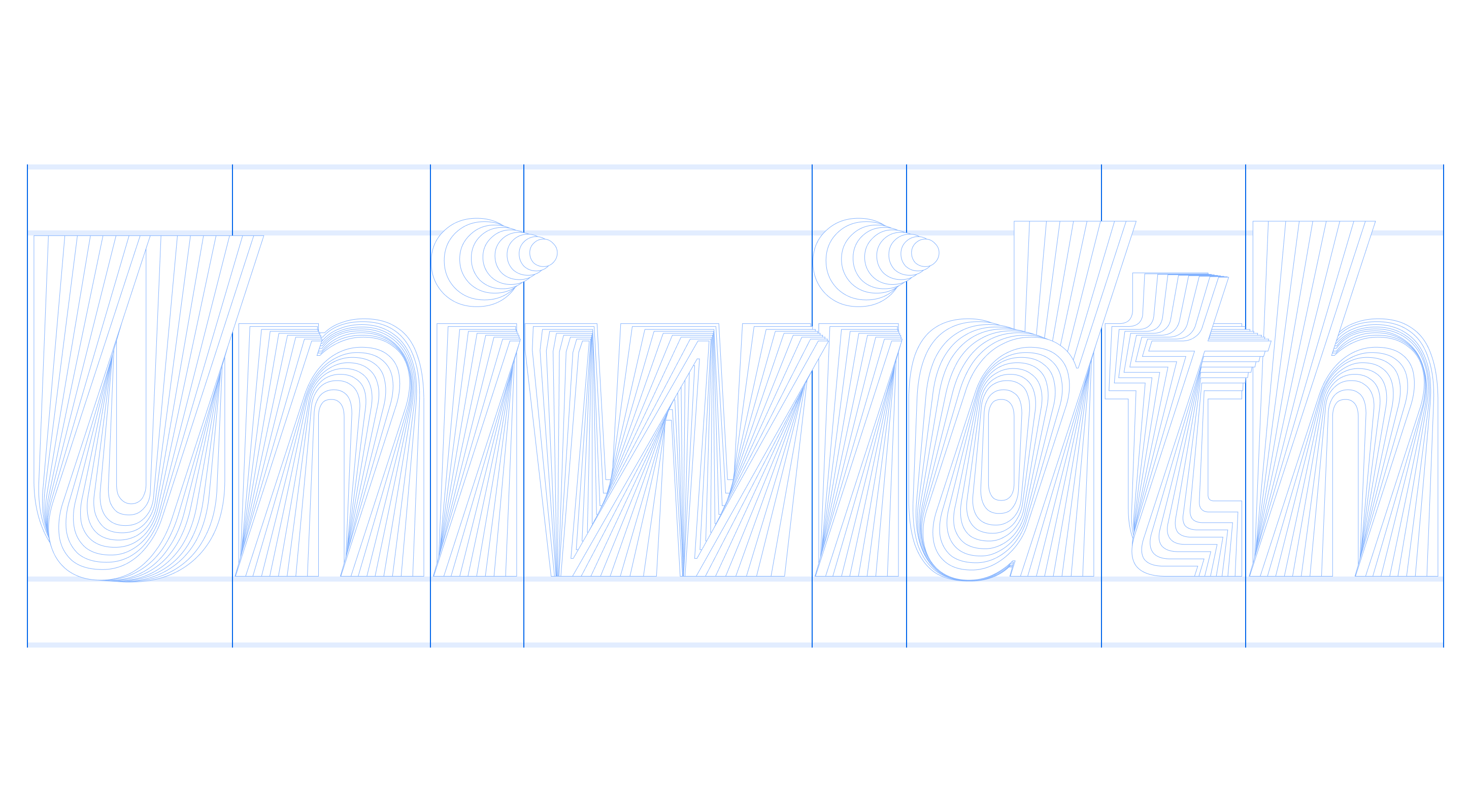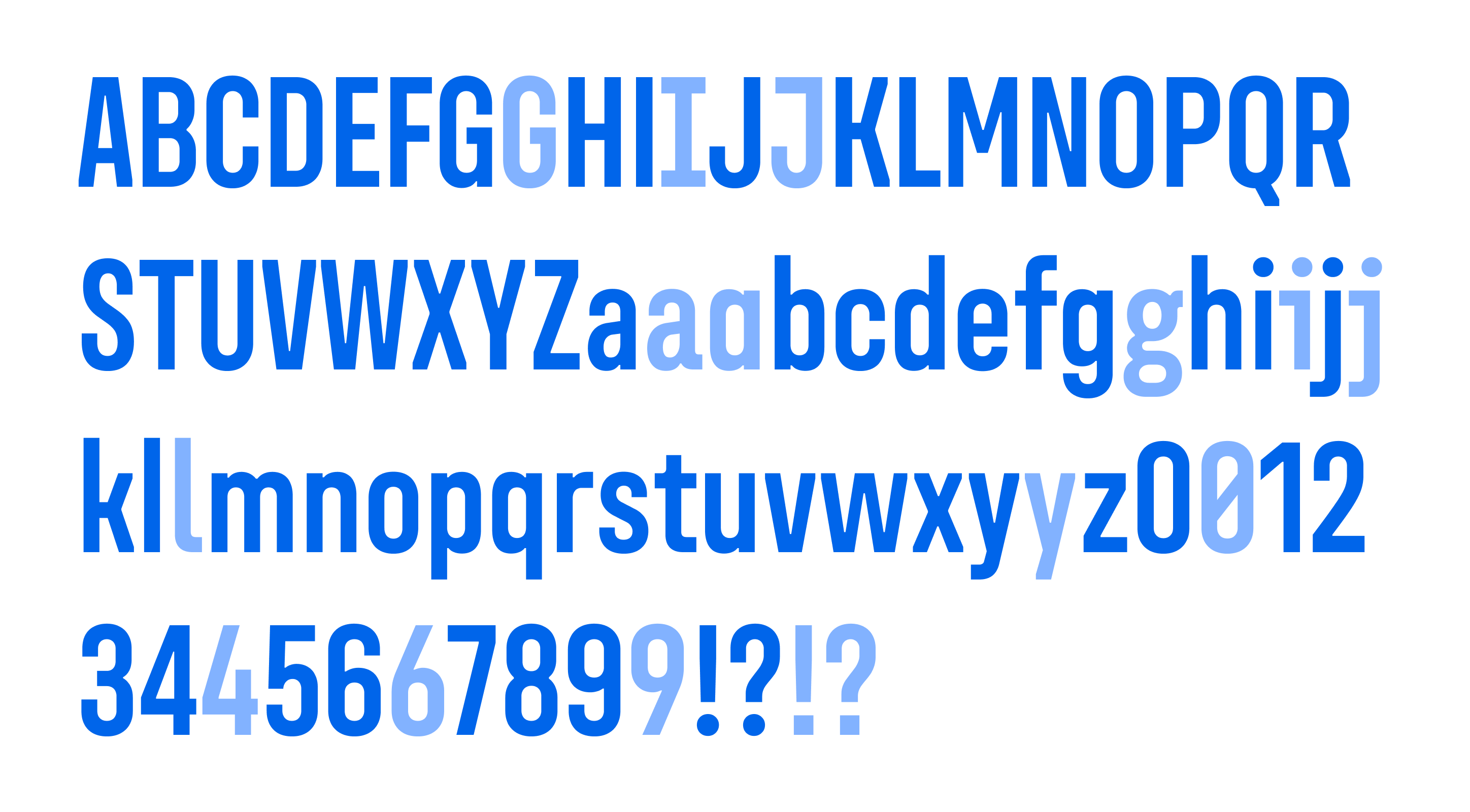
Unifora Condensed
Unifora Condensed is the most compact of the five widths in the Unifora uniwidth variable sans-serif superfamily, drawn at 75% of the standard character proportions. It is the right choice for data-dense interfaces: dashboard tables where columns must display more in less horizontal space, financial and analytics UIs, code editors, terminal displays, and mobile navigation labels where every pixel counts. The industrial character that defines Unifora is fully present in the Condensed width; the narrower proportions sharpen it further.
The uniwidth principle means that within Condensed, every glyph holds its advance width regardless of weight or style—bold a row in a live table and the surrounding layout stays put, with no reflow.
Unifora Condensed comes with 9 weights and matching italic and retalic styles with slants up to 18°. The variable font includes two axes: weight and slant.